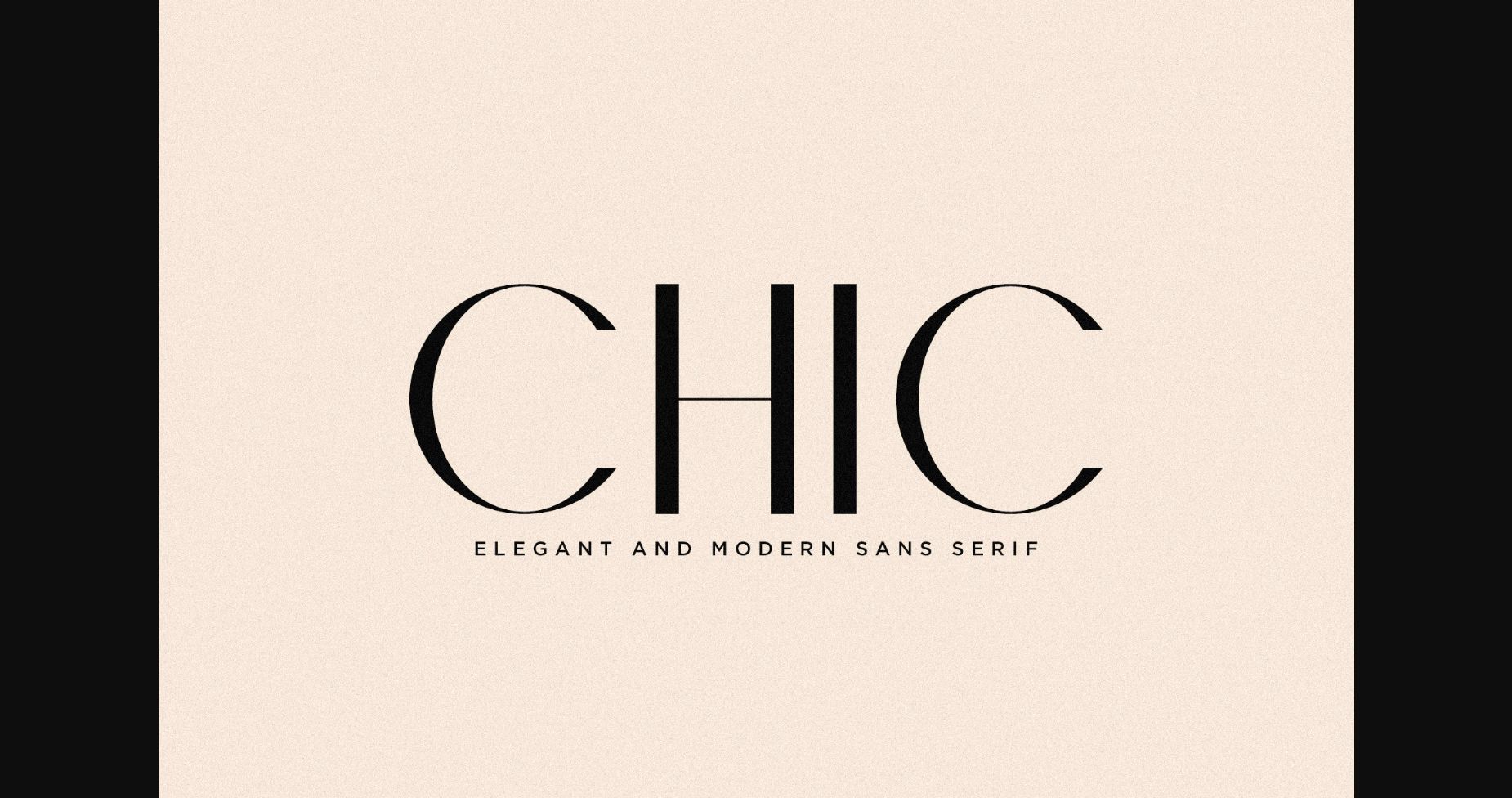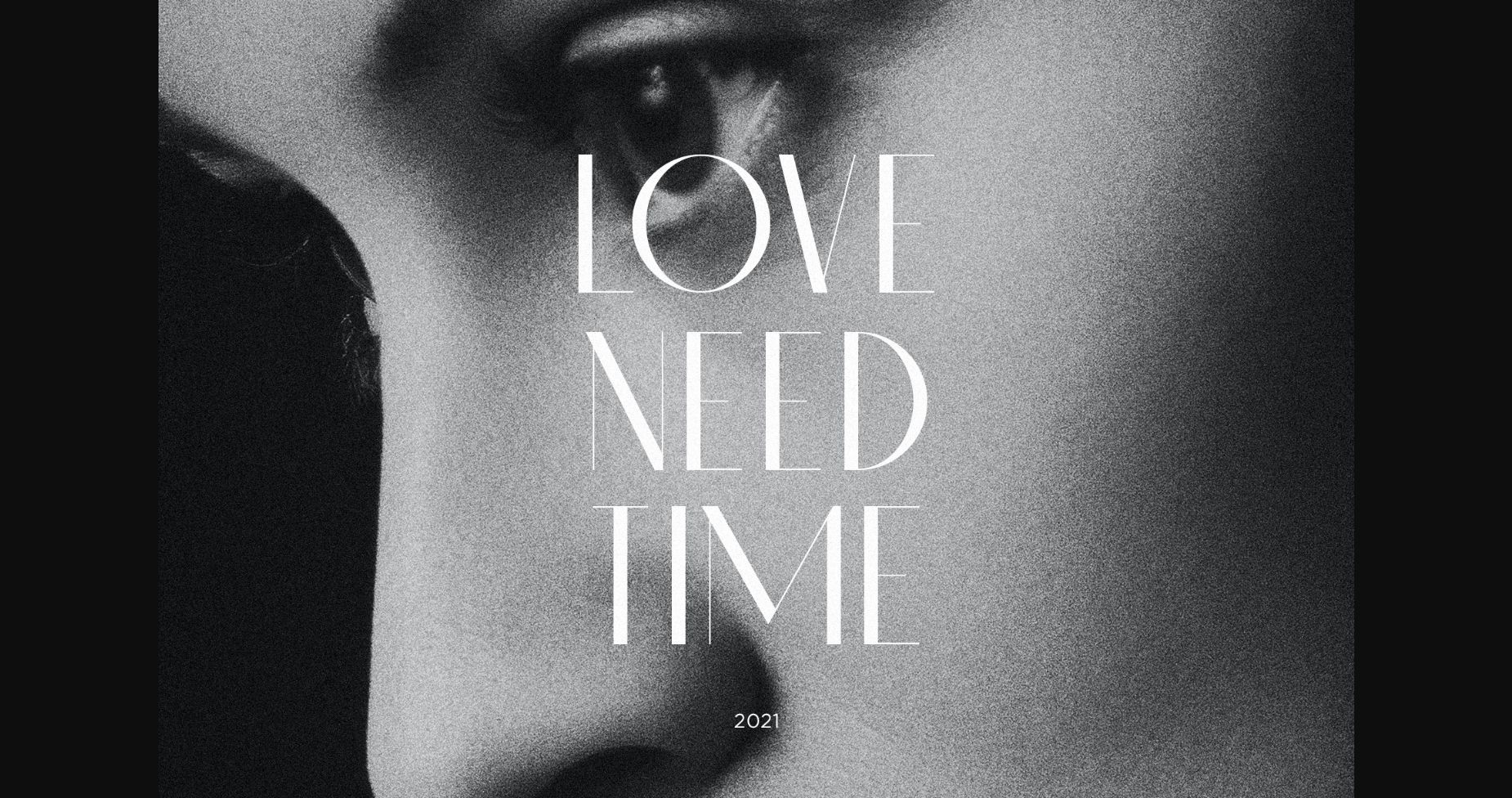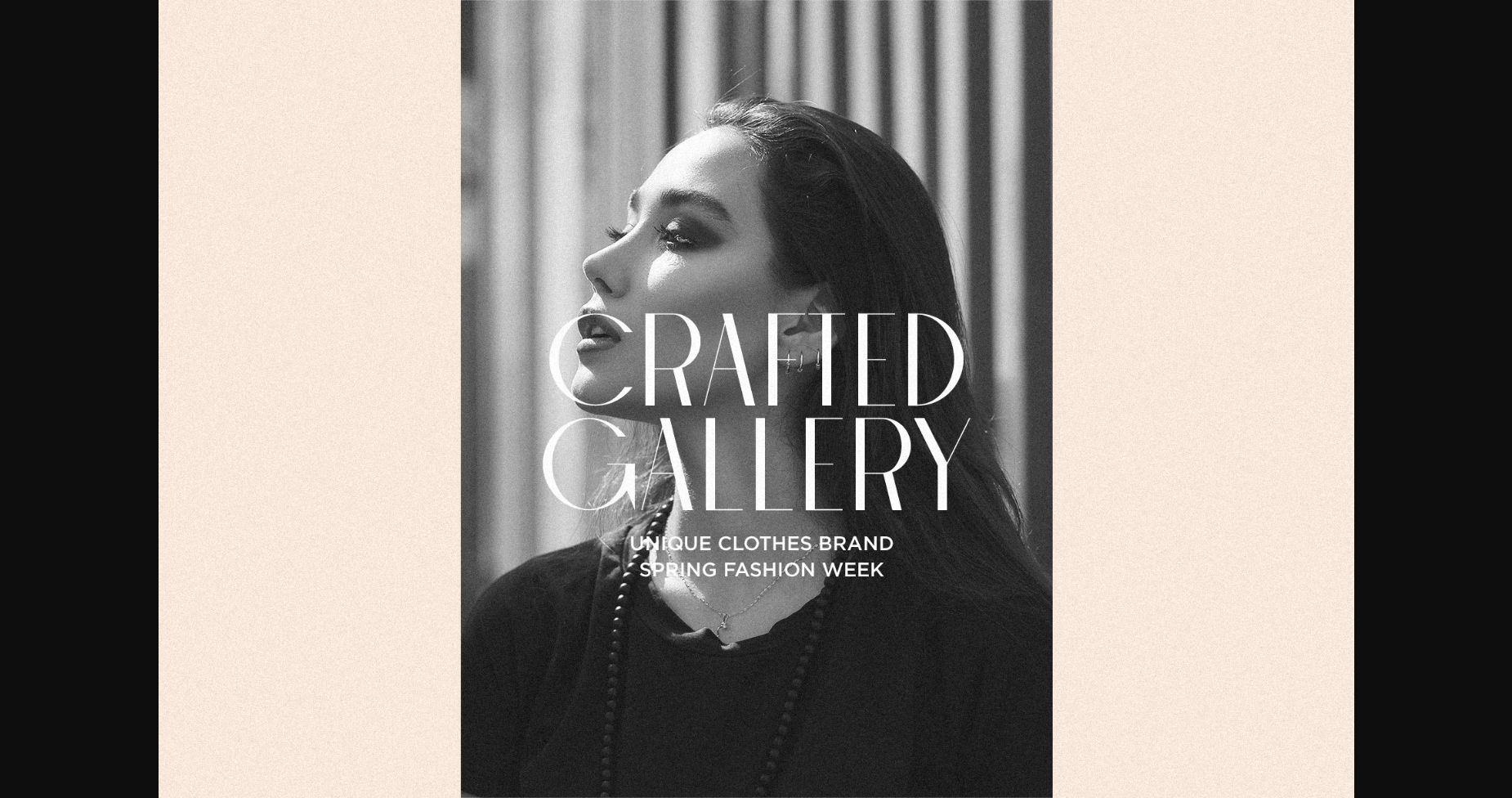
About Chic Font
Chic is an elegant and modern sans serif font with a French style. This font was designed for fashion projects, magazine headers, logos and more.